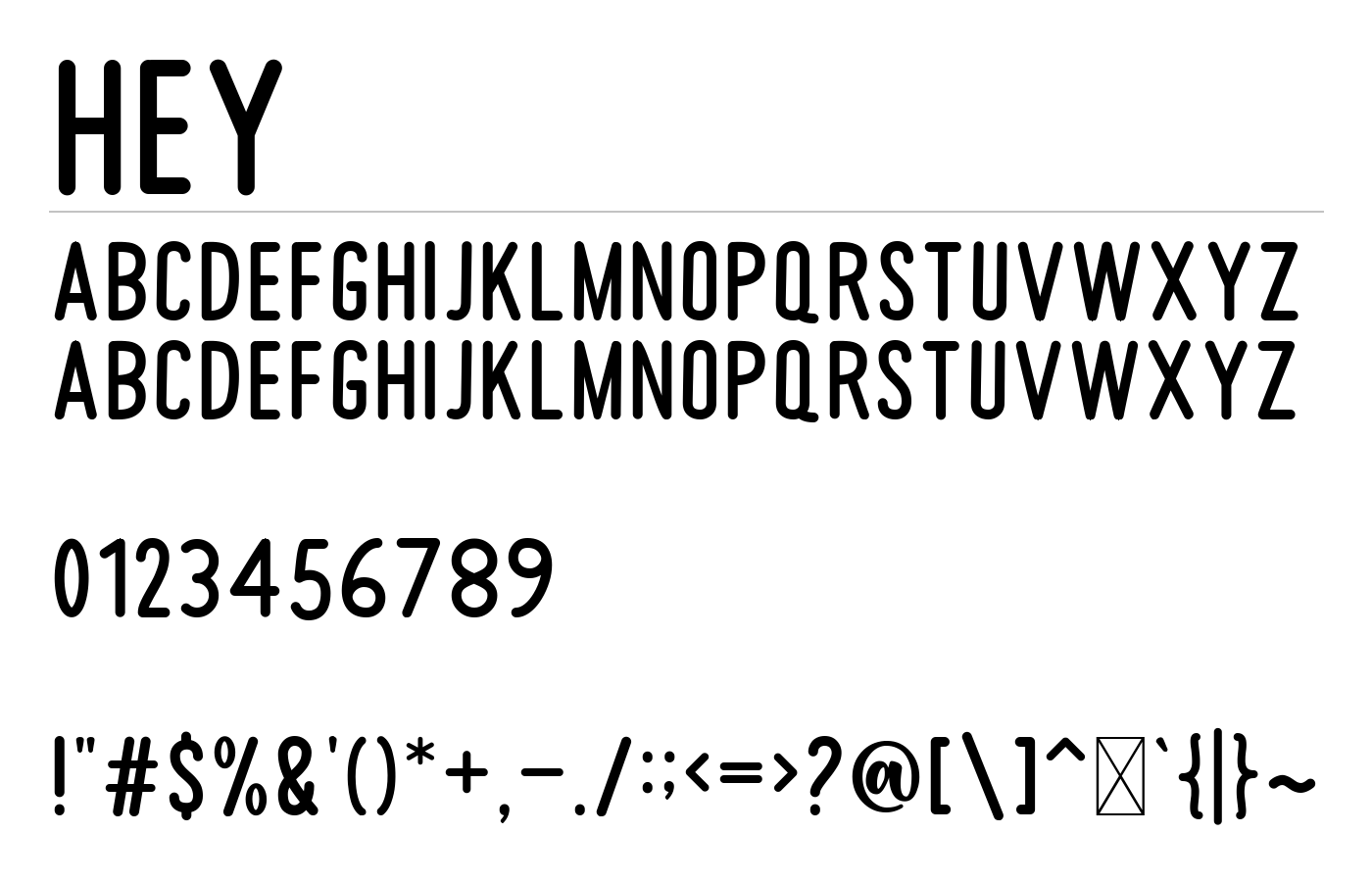
Hey Font is a clean, narrow sans serif with a friendly, approachable tone thanks to its rounded terminals and consistent stroke weight. Its tall, condensed letterforms create a modern and compact look that works well for headlines, branding, and signage where clarity and space efficiency are key. This font’s simple yet distinctive style makes it perfect for modern, casual, or tech-forward brands seeking a fresh and straightforward voice.
Hey Font
About Hey Font